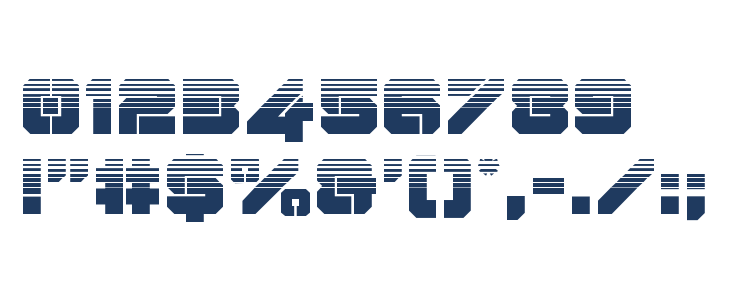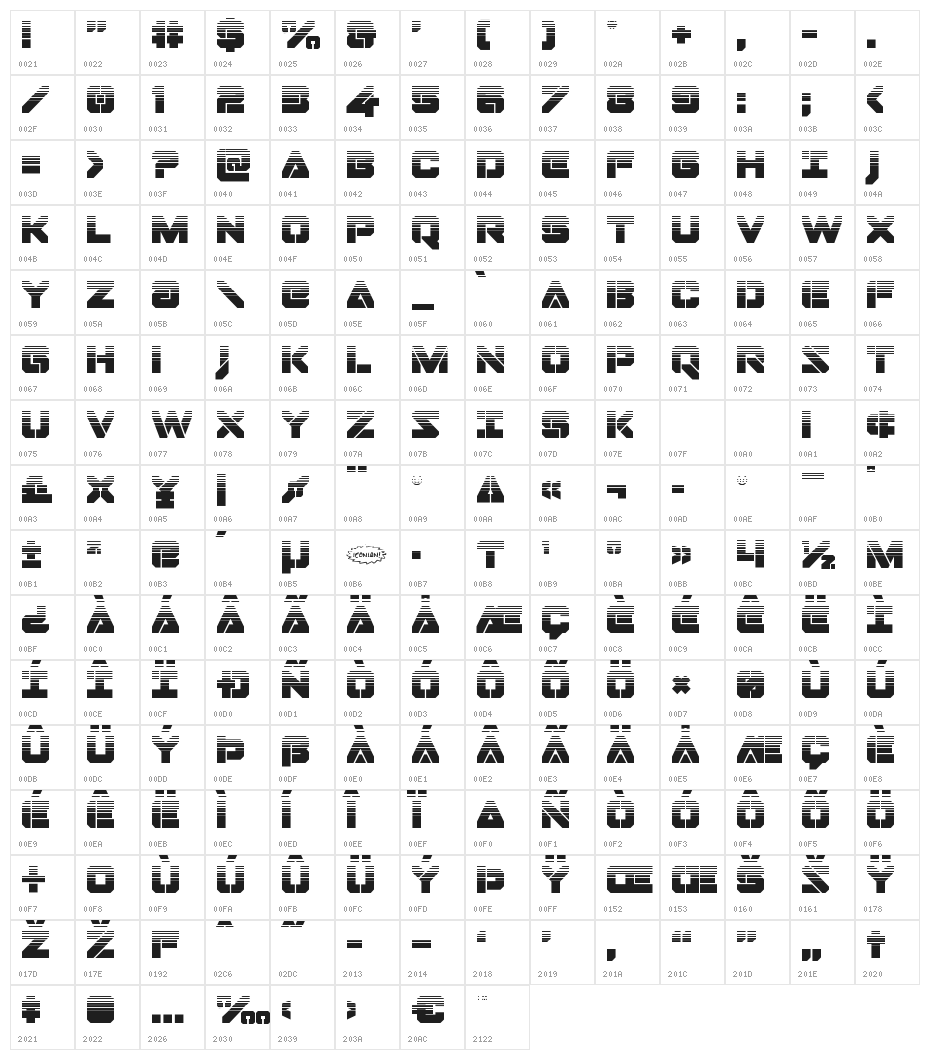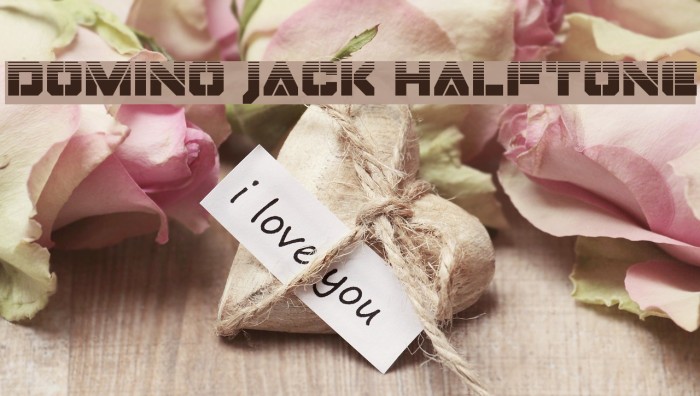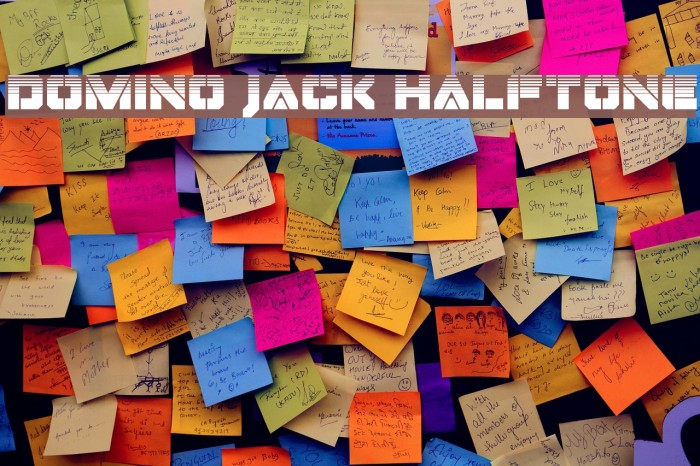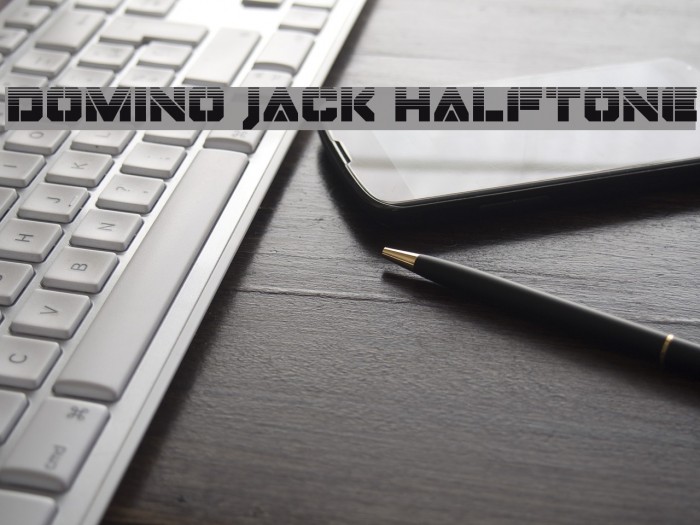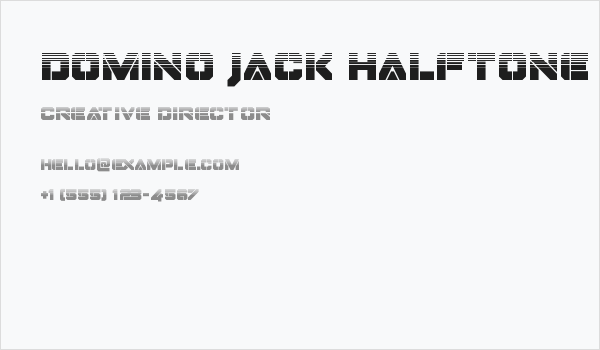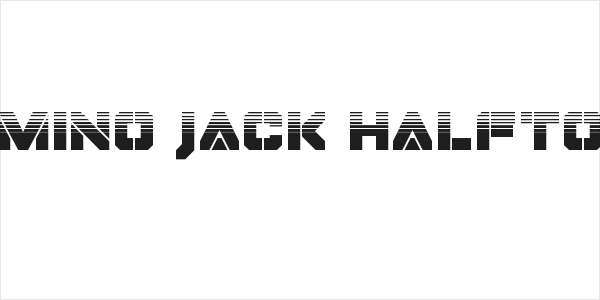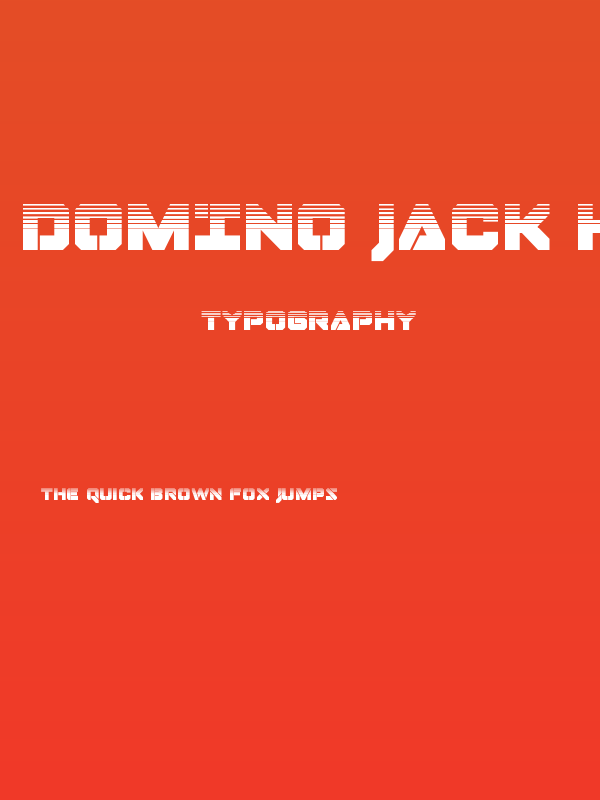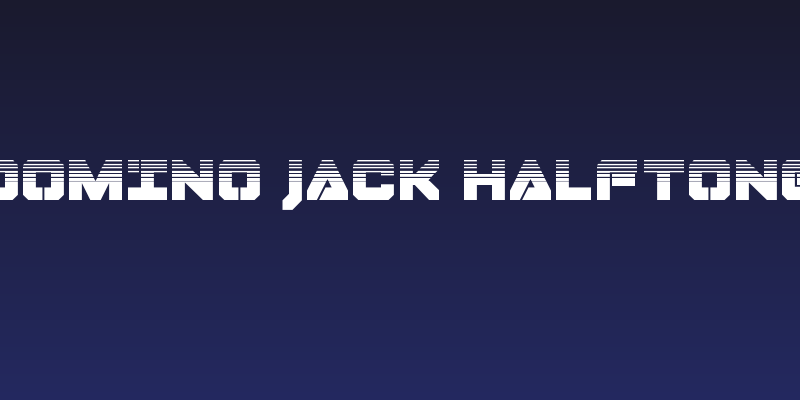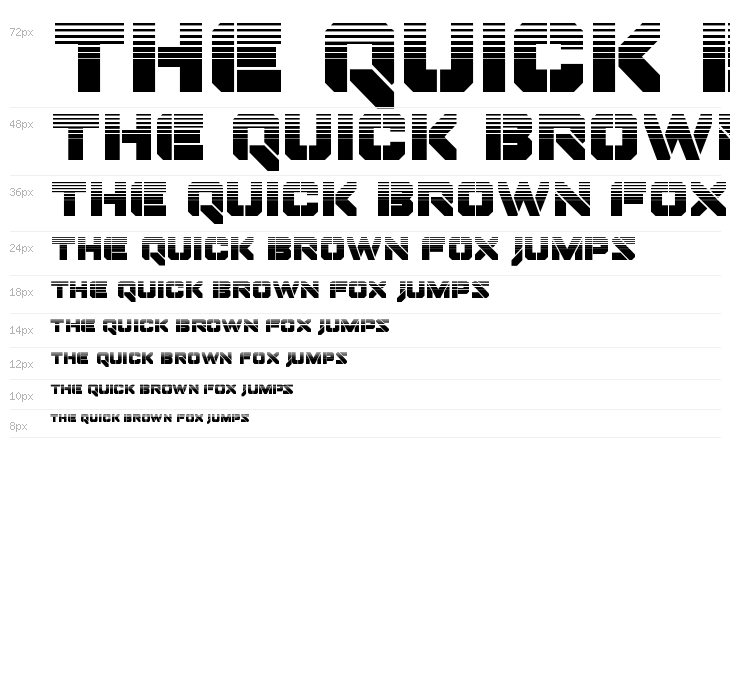
Domino Jack Halftone Font
Domino Jack Halftone Description
This font features a bold, geometric design with a halftone effect that gives it a unique, layered appearance. The characters are constructed with solid, block-like shapes that are intersected by horizontal lines, creating a sense of depth and movement. The uppercase letters are particularly striking, with their angular forms and strong presence. The numbers and special characters maintain this bold aesthetic, ensuring consistency across the typeface. This font is ideal for projects that require a modern, edgy look with a touch of retro flair.
| Proposed Projects | Ideal for posters, album covers, branding, and any design needing a modern, edgy aesthetic. |